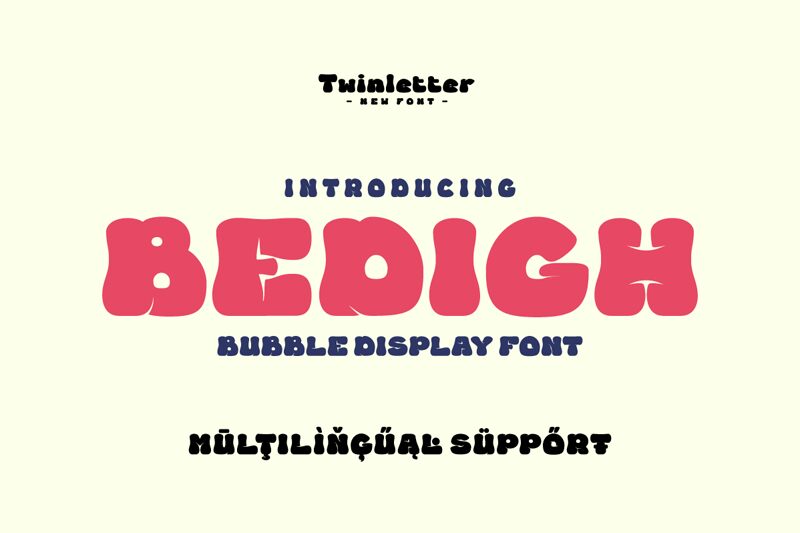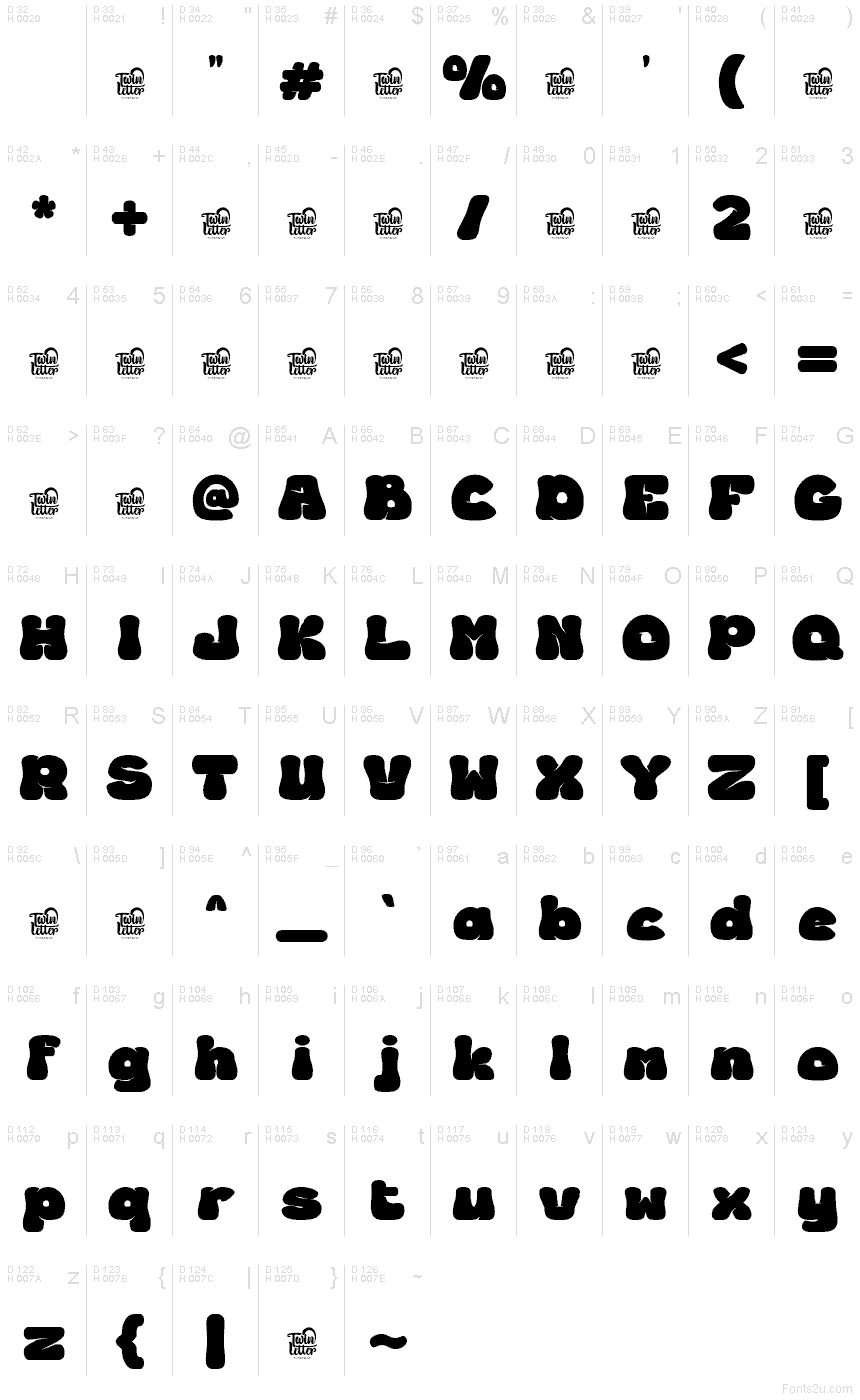
BEDIGH Trial Regular
Bedigh font by Twinletter is a free groovy display typeface. Its puffy, blobby letters feel like ink puddles snapped into shape—thick, rounded, and cheerfully offbeat. The rhythm has a bouncy swing that turns solid black shapes into friendly, high-impact silhouettes, making Bedigh read loud and warm at a glance.
Using Bedigh, headlines grab attention without shouting; there’s a playful confidence that suits posters, album covers, party flyers, kids’ branding, food packaging, social graphics, and sticker sheets. This free font shines at big sizes where its soft contours can breathe. Pair Bedigh with a clean, light-weight geometric sans for body copy to balance the chunky forms.